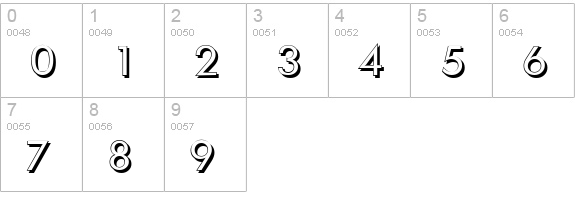
LimerickShadow-Regular is the standard, neutral variant in the LimerickShadow typeface family \xE2\x80\x94 well suited to general body text, paragraphs, and standard typographic work.
LimerickShadow-Regular font is a unique and elegant typeface that brings a touch of sophistication to any design project. This font features a stylish shadow effect that adds depth and dimension to your text. With its classic yet modern look, LimerickShadow-Regular is perfect for creating eye-catching headlines, titles, and logos. Best of all, LimerickShadow-Regular is available for free download at FontsMarket.com. This means you can easily access this stunning font and use it in your personal or commercial projects without any cost. Whether you're working on a website, poster, flyer, or any other design, LimerickShadow-Regular is sure to make a statement and elevate your typography game. Download it today and add a touch of elegance to your creations with this beautiful font.